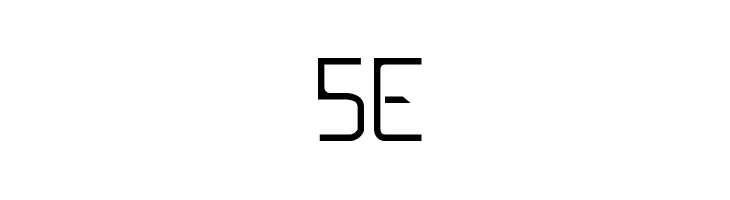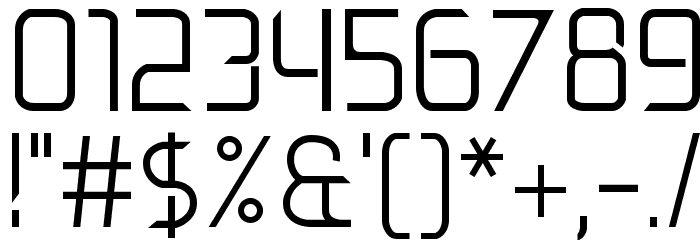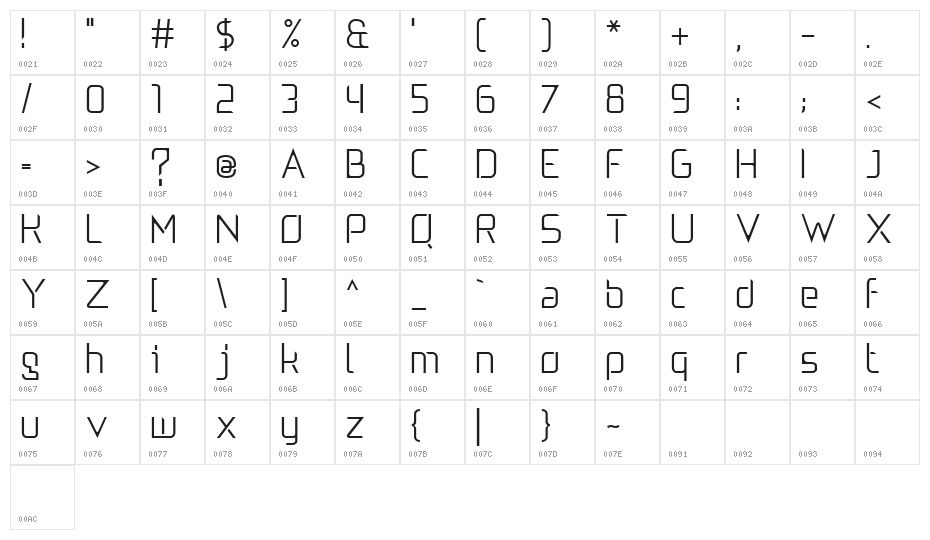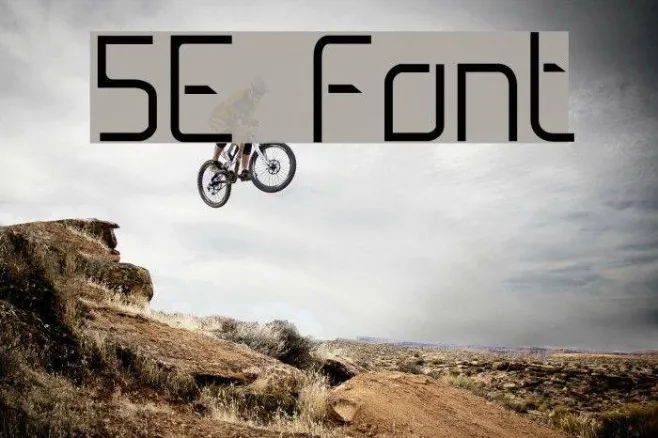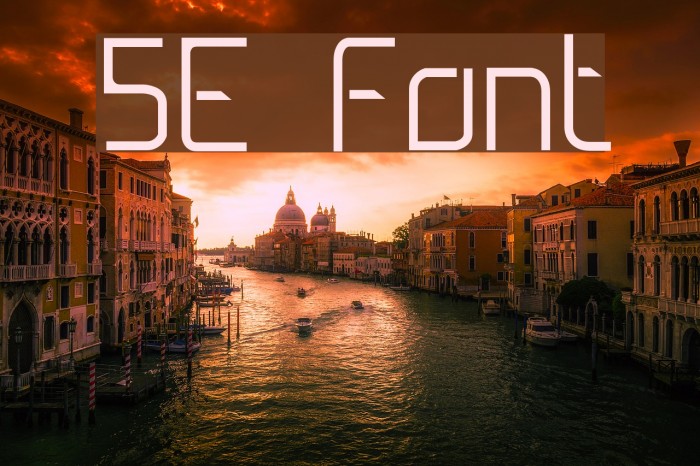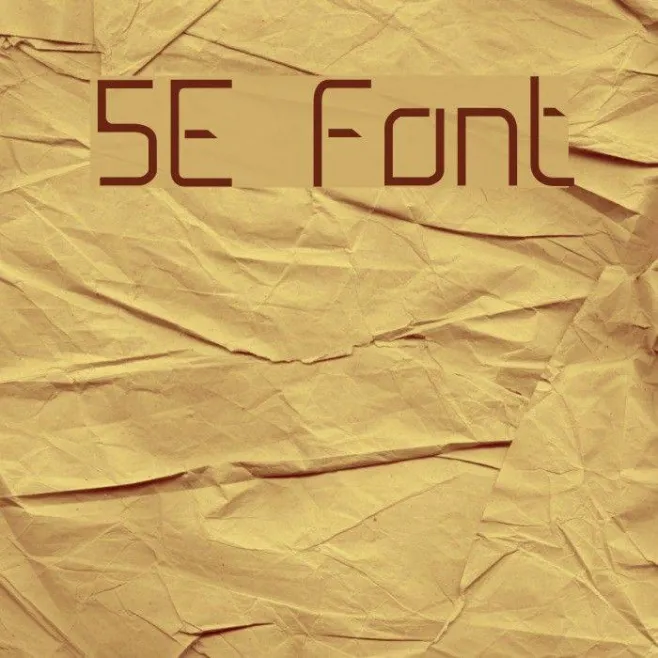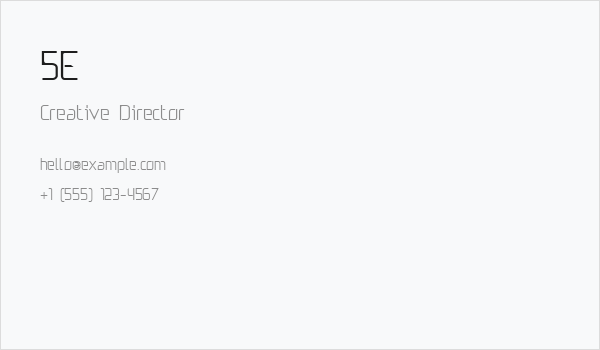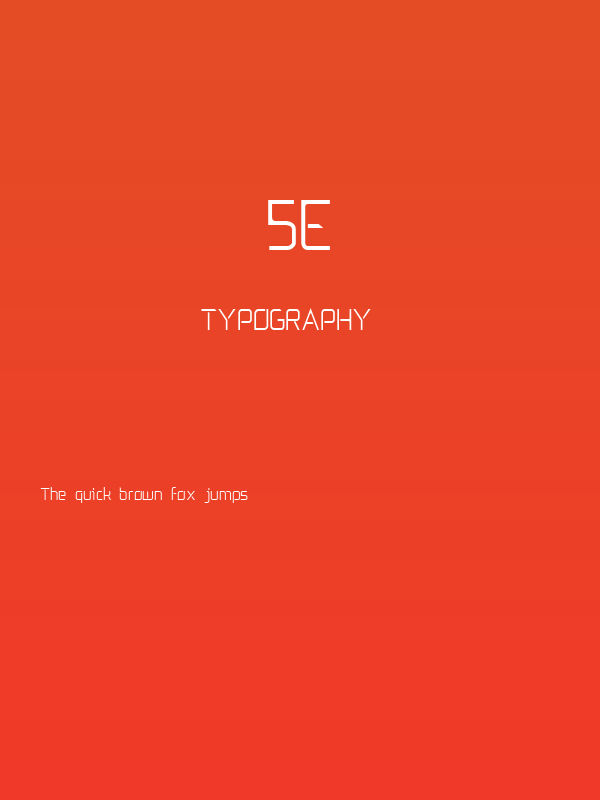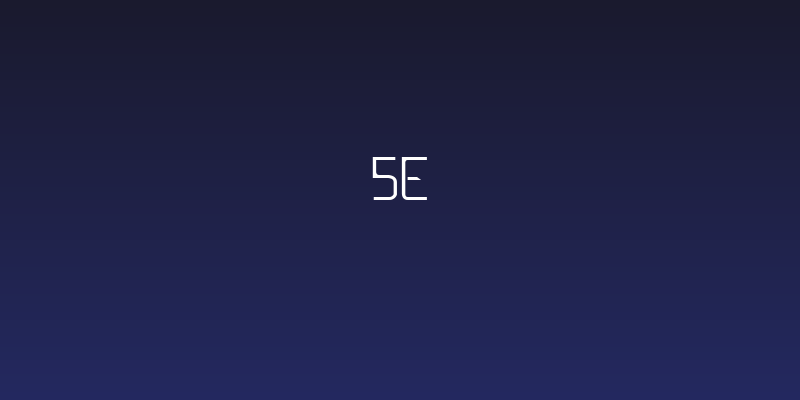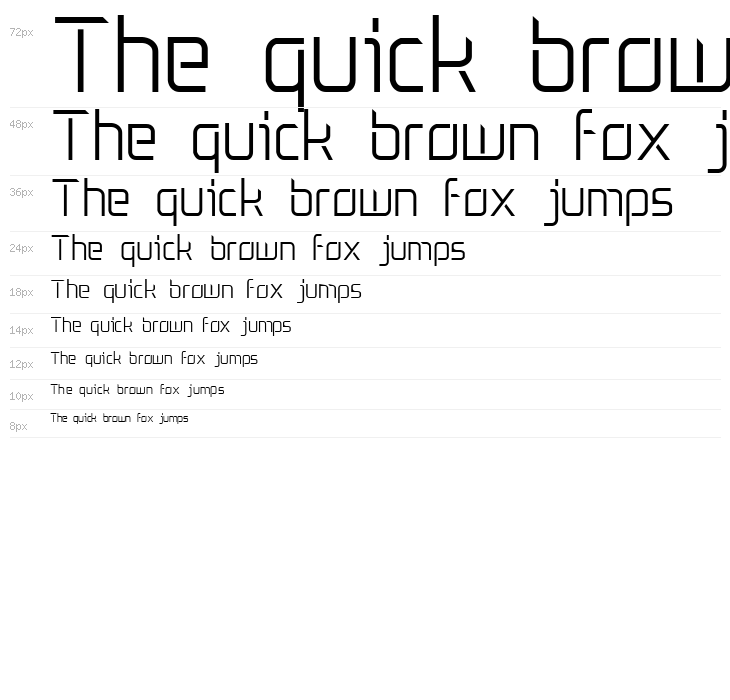
5E Font
5E Description
This font features a modern, geometric design with clean lines and a futuristic aesthetic. The characters are constructed with a consistent stroke width, giving it a uniform appearance. The uppercase letters are angular and sharp, while the lowercase letters maintain a similar geometric structure with slightly softer curves. The numerals are distinct and align well with the overall style, ensuring readability. Special characters are designed to match the font's sleek and contemporary look, making it suitable for digital and print media.
| Proposed Projects | Ideal for technology branding, digital interfaces, modern advertising, and futuristic design projects. |